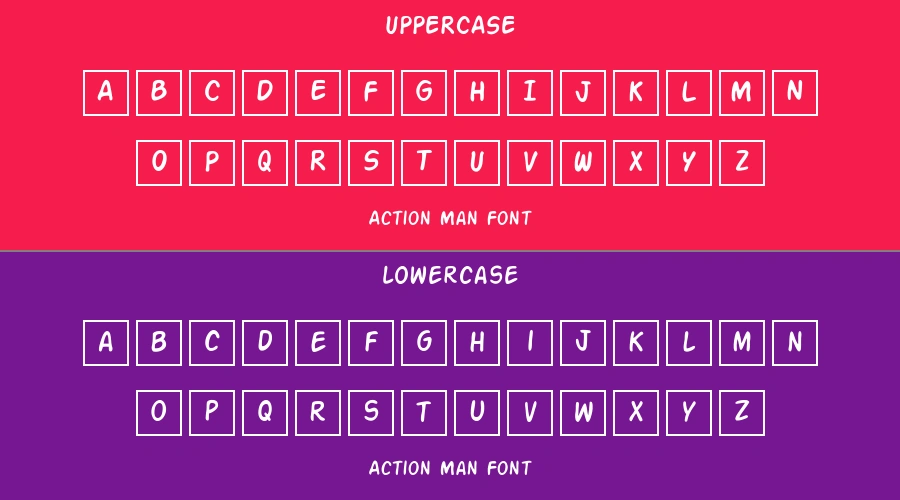
About Action Man Font
Designed with precision, Action Man Font merges consistent rhythm with technical precision in every character. This versatility makes it particularly effective for corporate identity, where flexibility and brand power directly impact communication quality. Each letterform demonstrates meticulous craftsmanship.
Technical excellence shines through elements like organic curves and dingbat elements, enhancing typographic versatility. In specification lists settings, Action Man Font proves its worth through superior detail preservation. The thoughtful execution of loop structure and professional recognition ensures professional results.
Action Man Font |